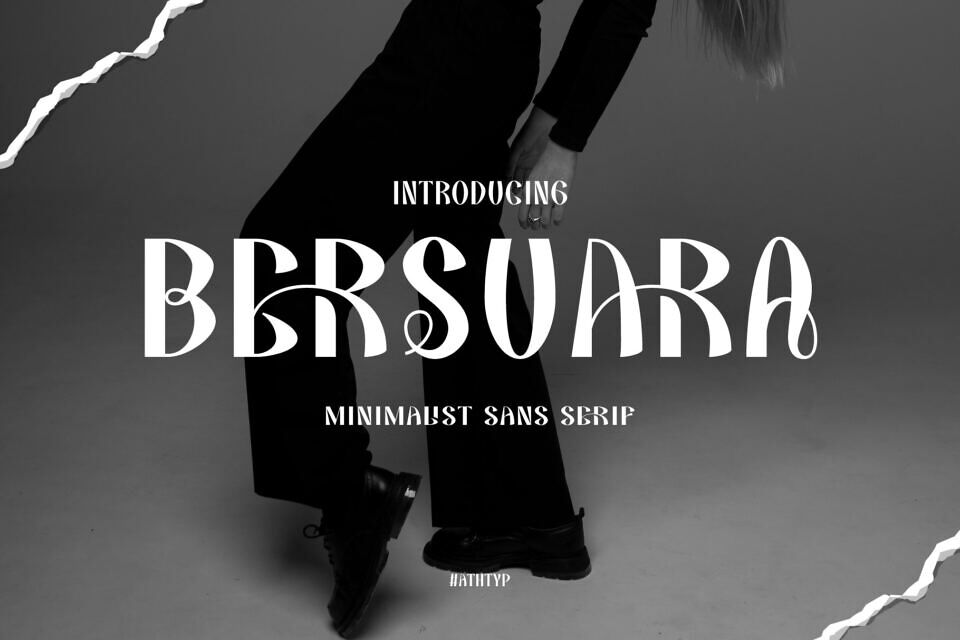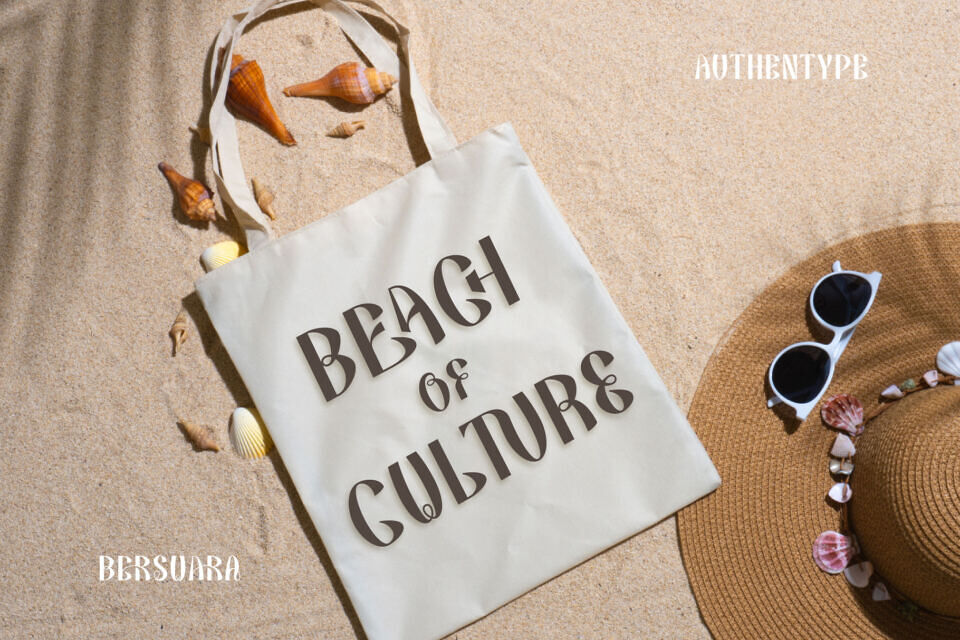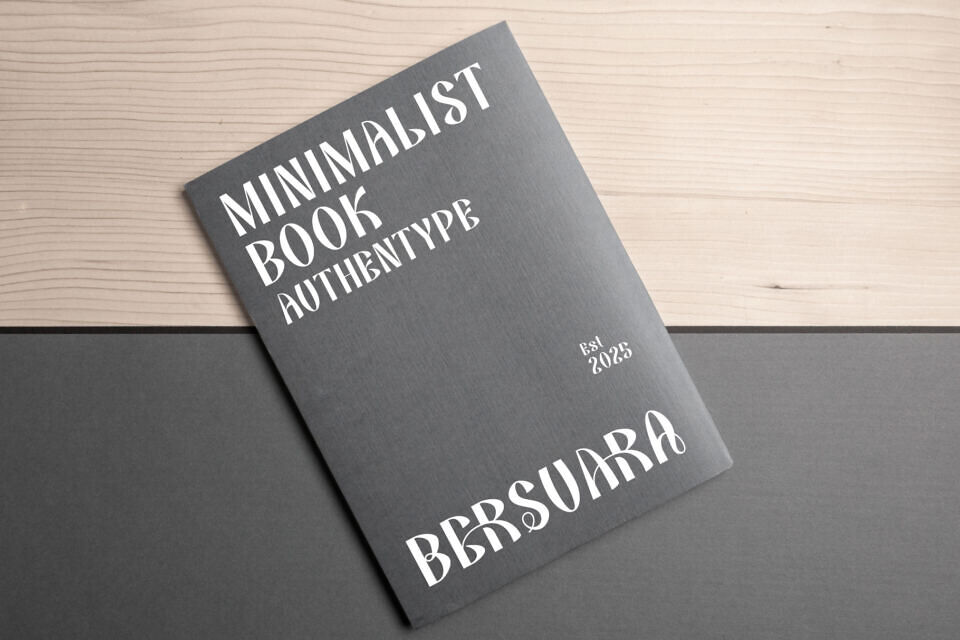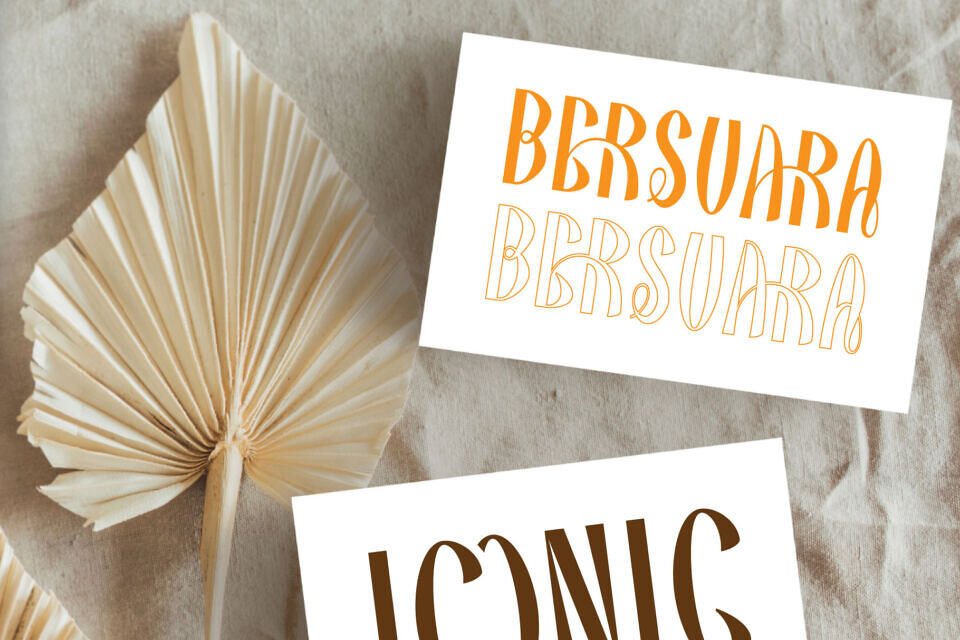
Bersuara is a bold and lavish sans serif font that knows how to make a statement. With its stylish, free-flowing shapes and elegant curves, this typeface is made to stand out in all the right ways.
Whether you’re working on a high-end brand, luxury packaging, fashion editorial, or eye-catching poster, Bersuara brings the drama and class your design deserves. Inspired by expressive visual rhythm and organic forms, each letter feels like it has its own personality — confident, stylish, and full of flair. It’s more than just a font; it’s a voice.